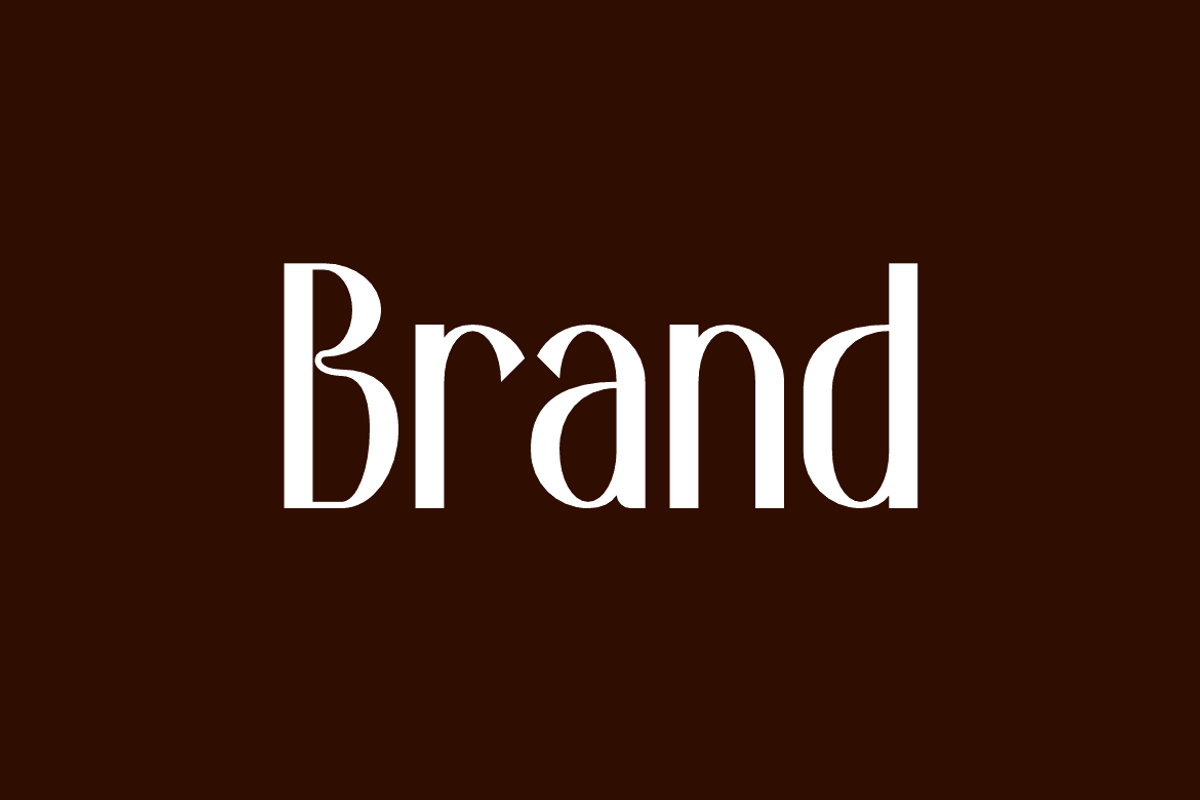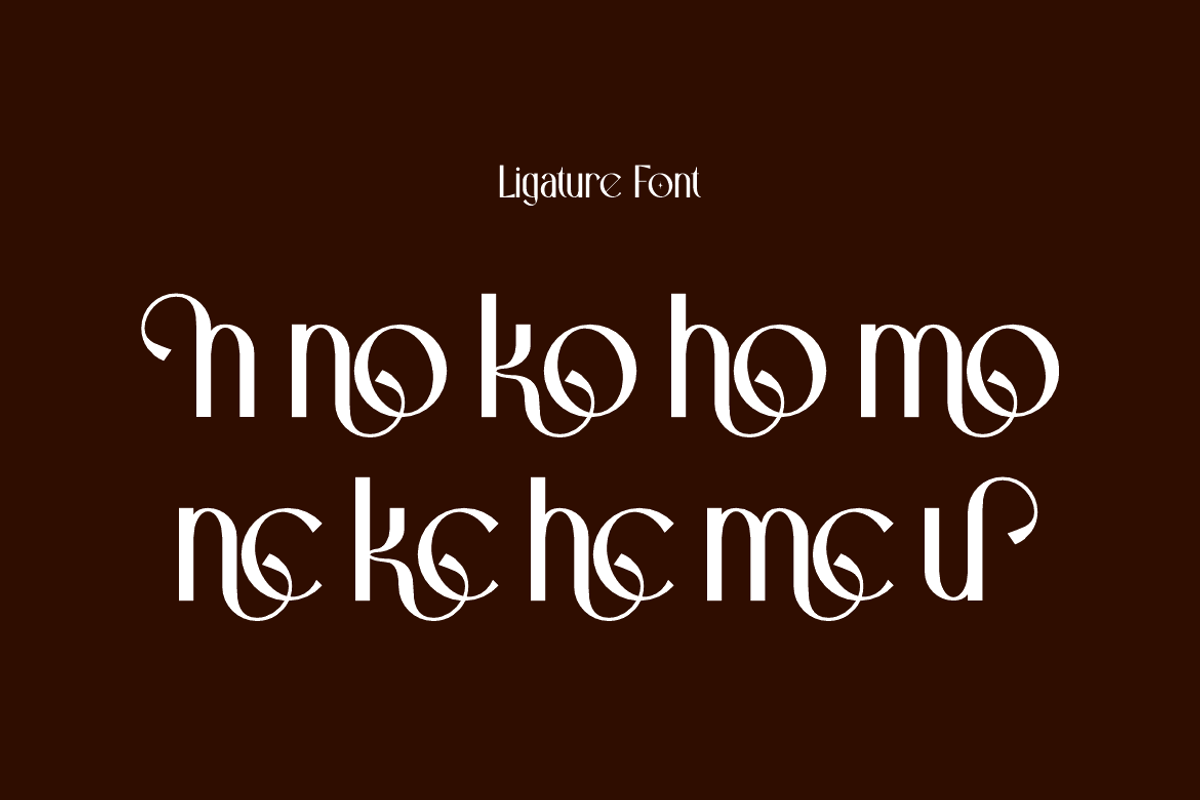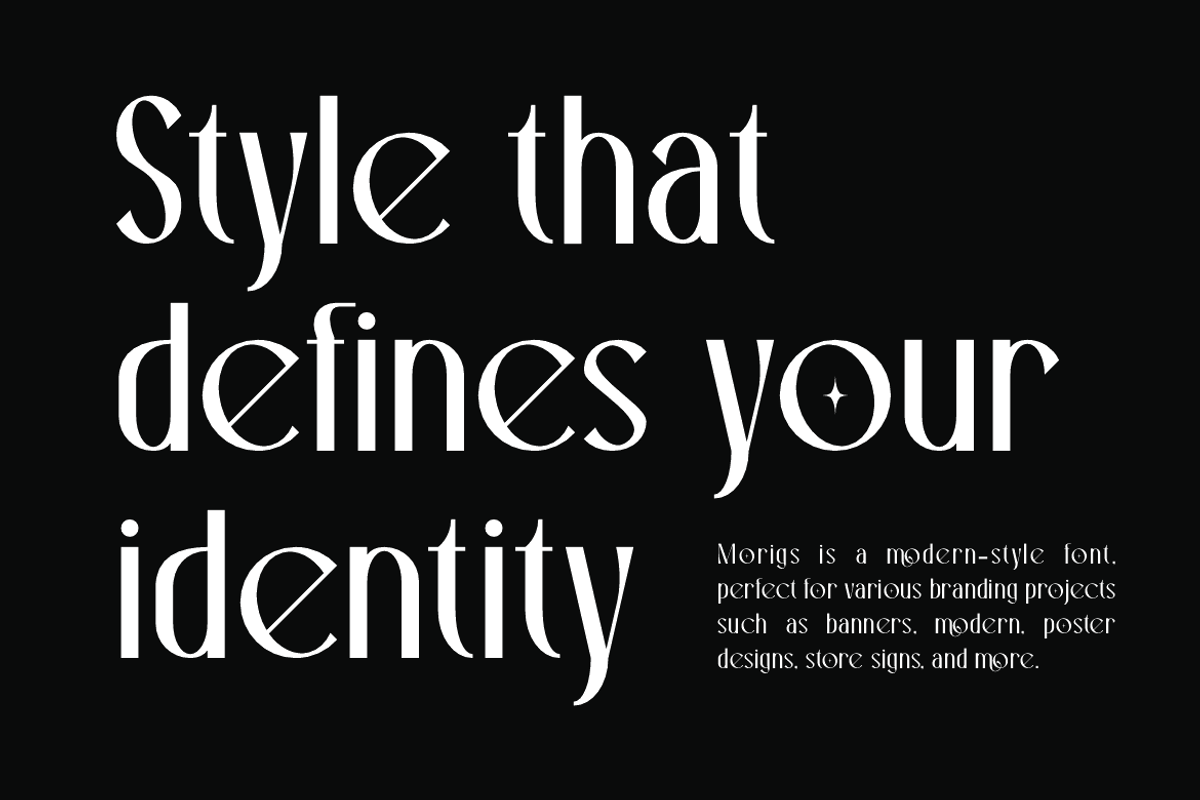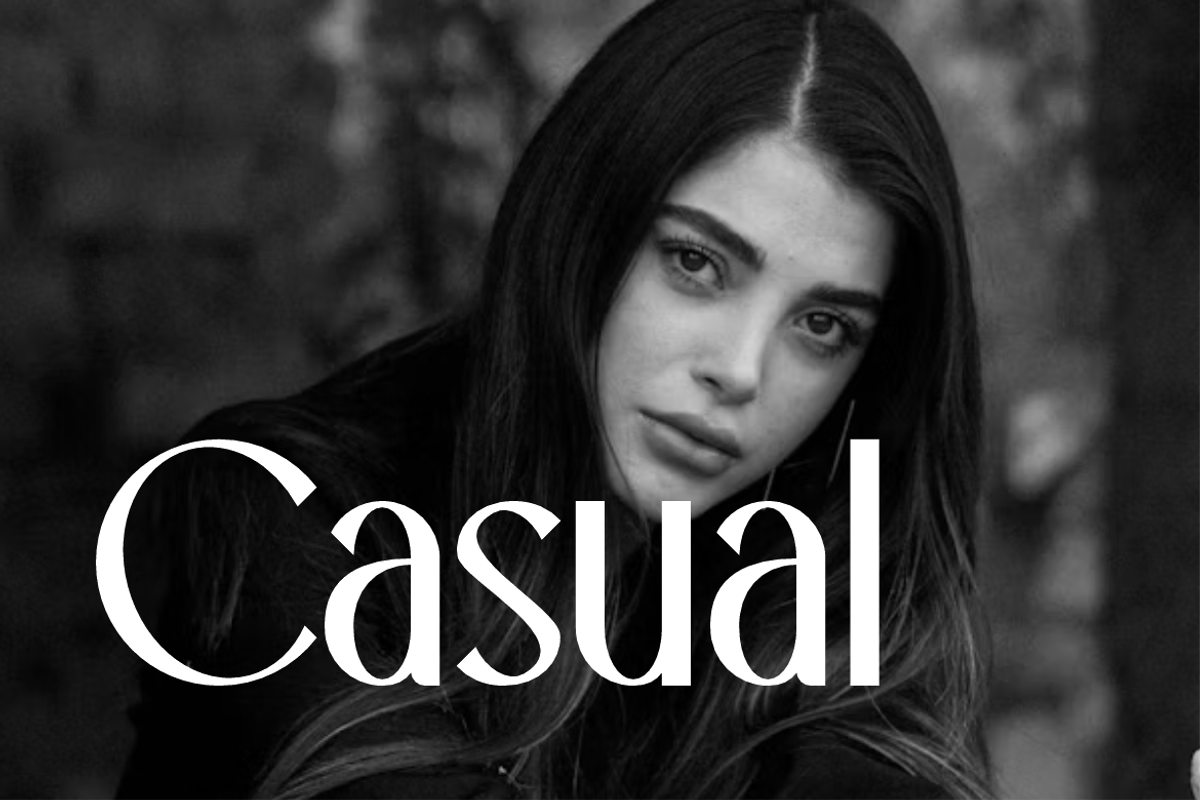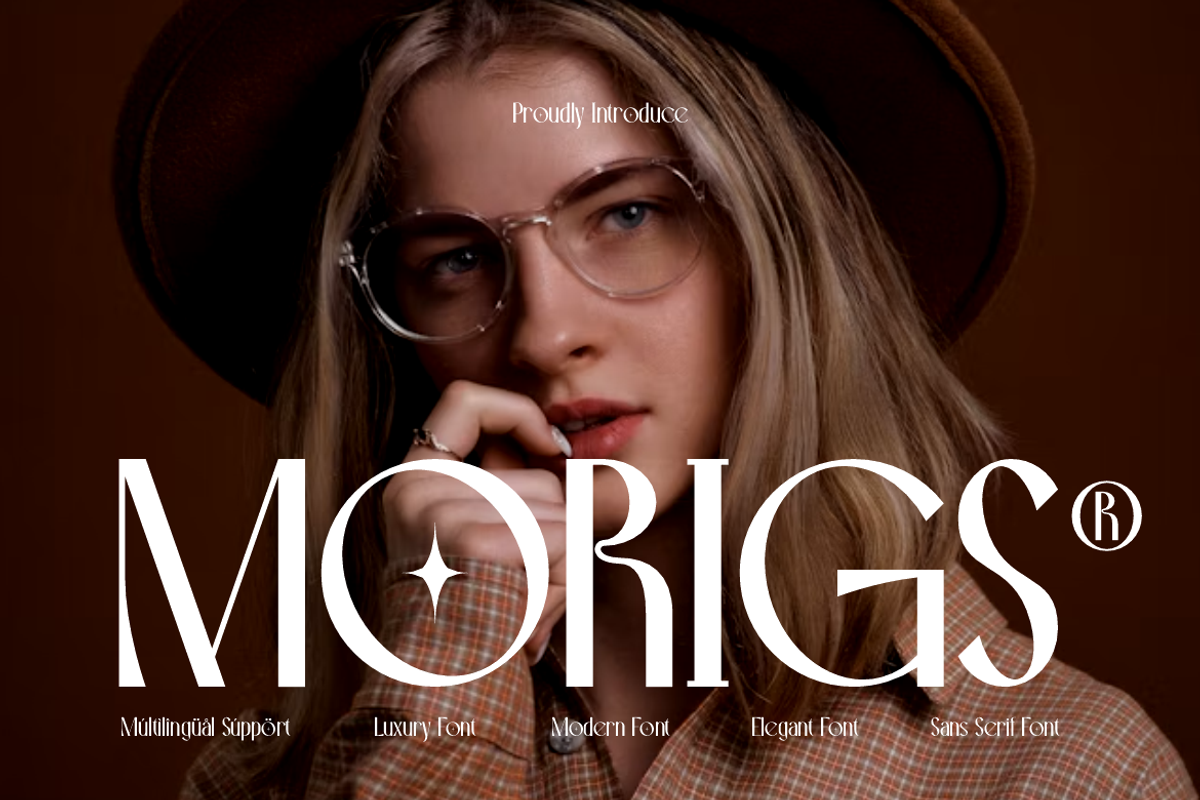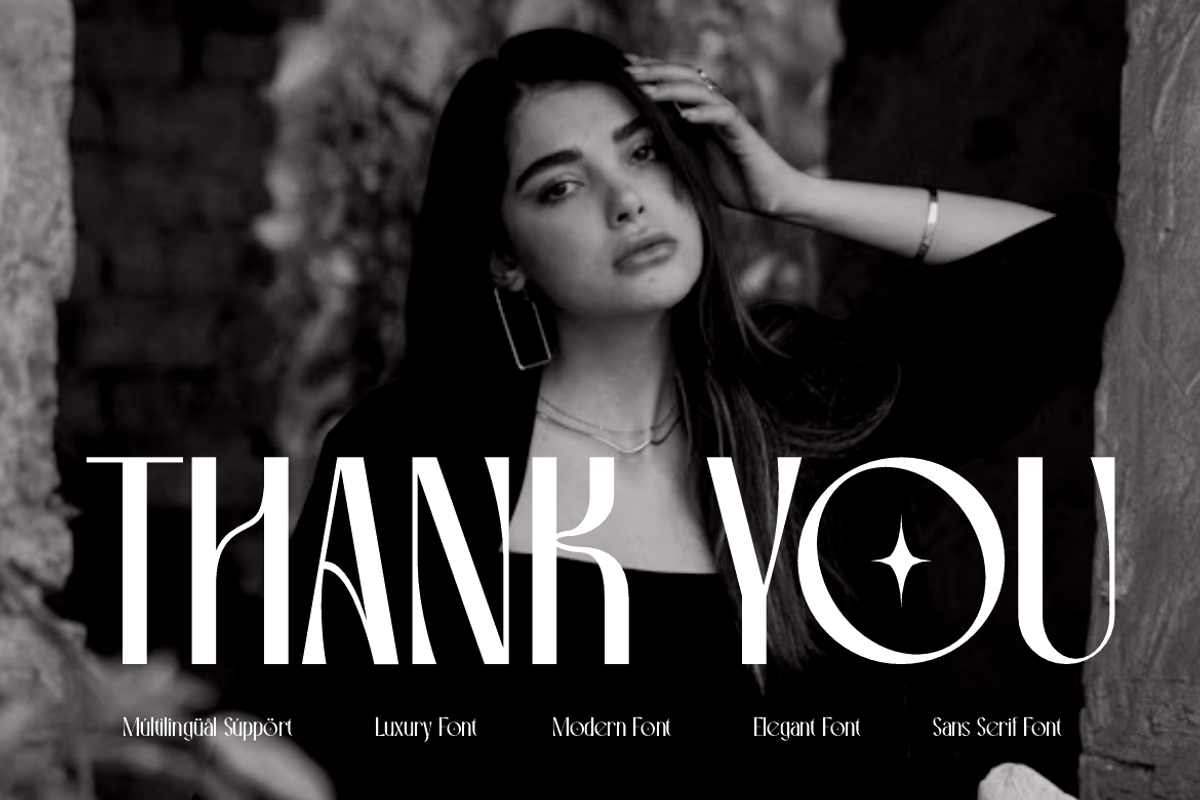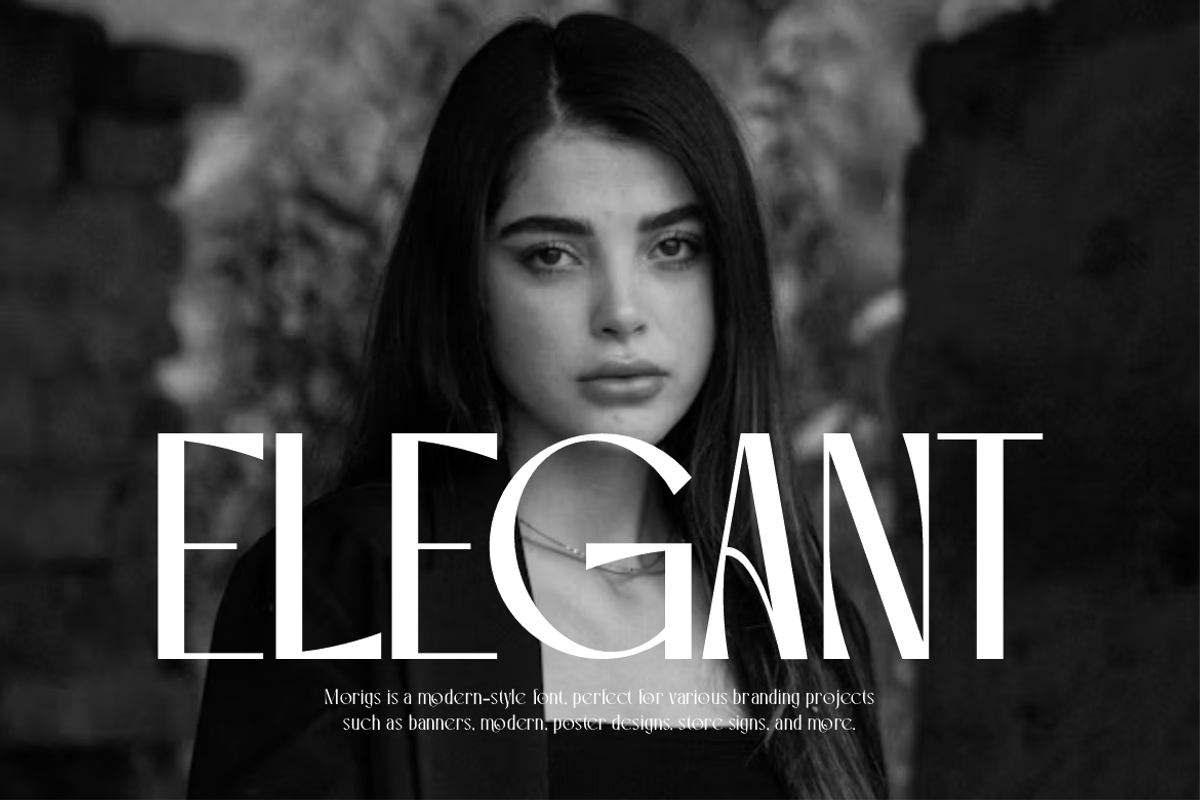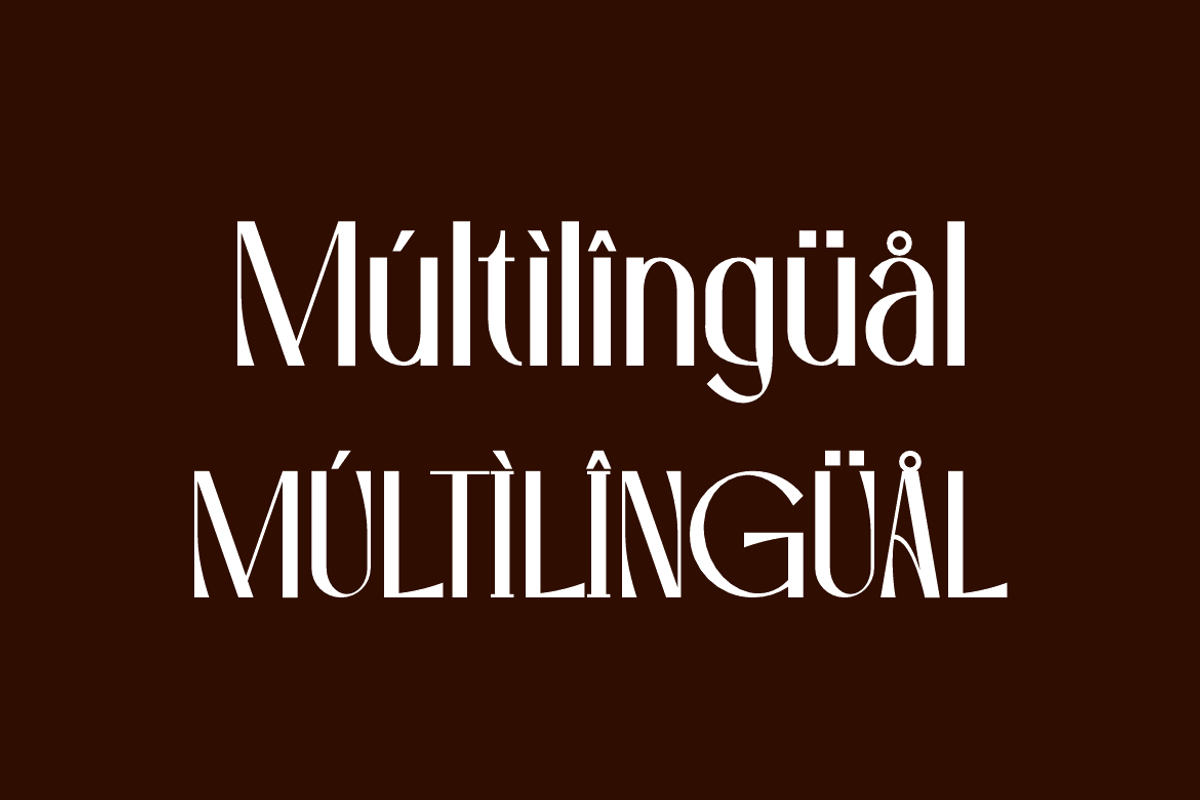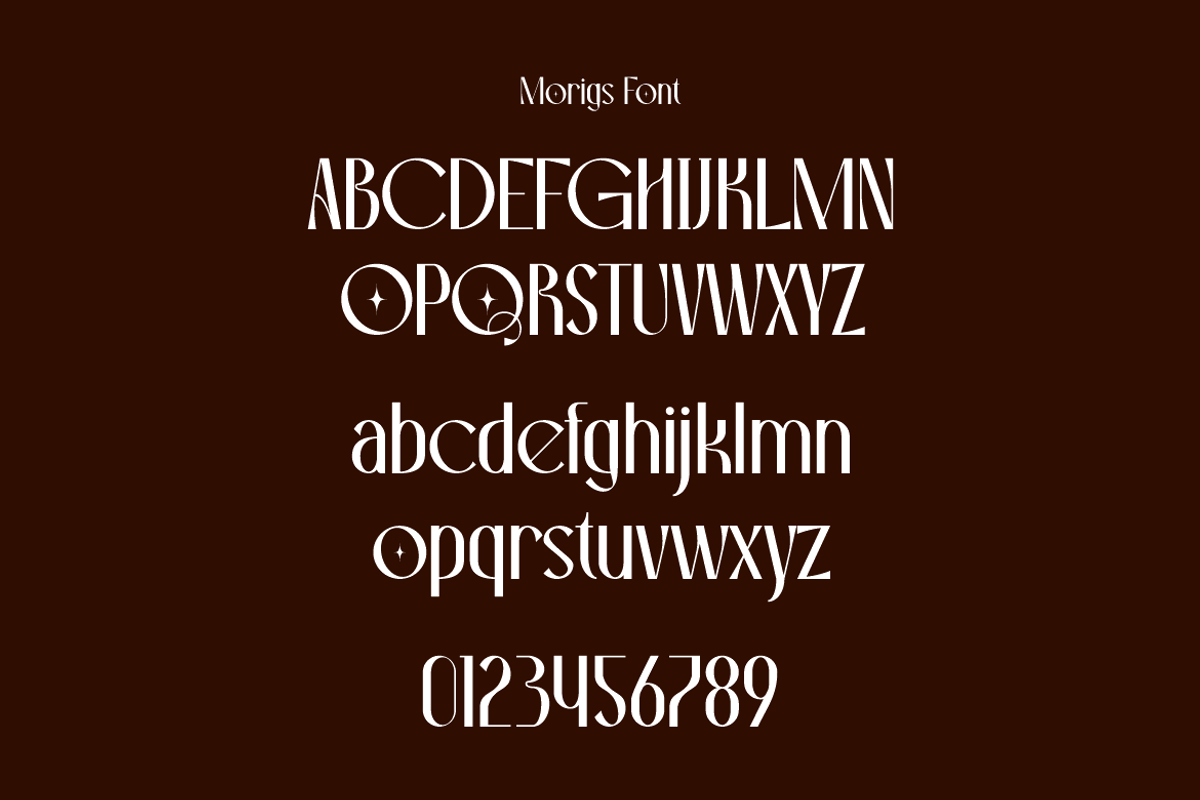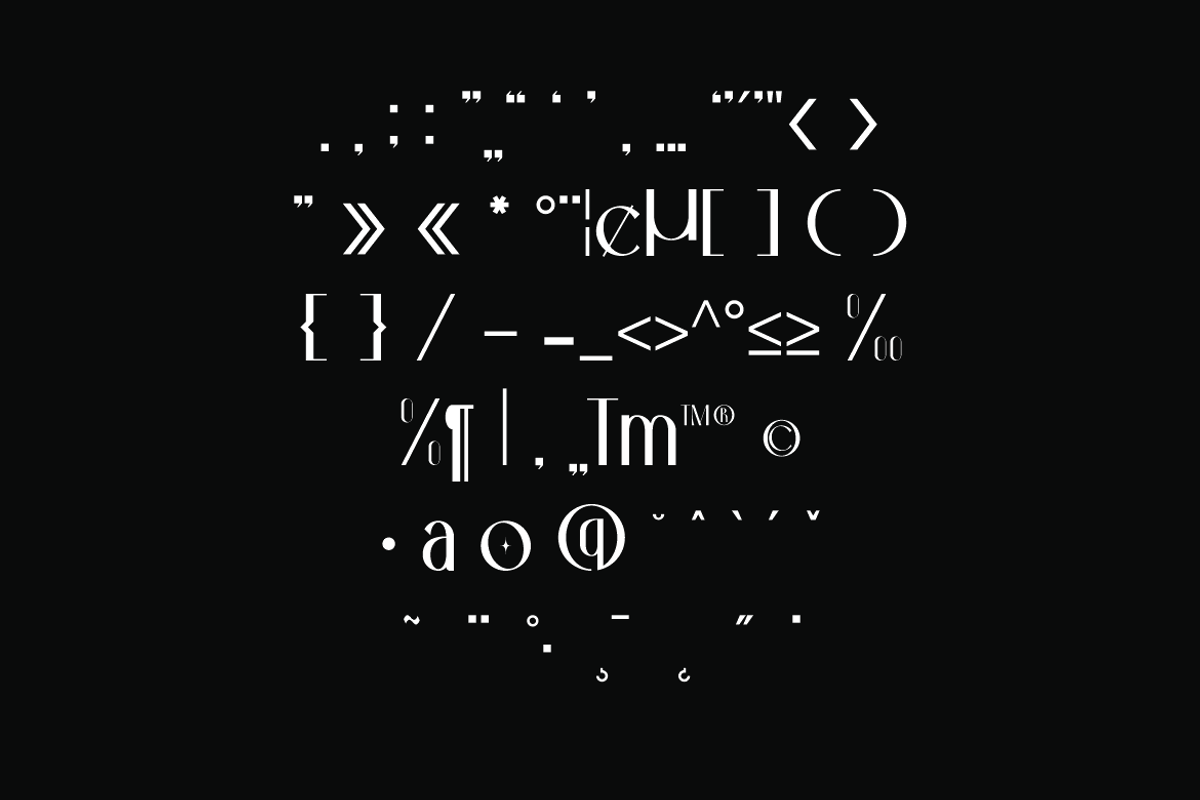
Morigs - Modern Elegant Font
Morigs Font is a modern and authentic display typeface
that suits a variety of design needs. We offer a wide range of themes